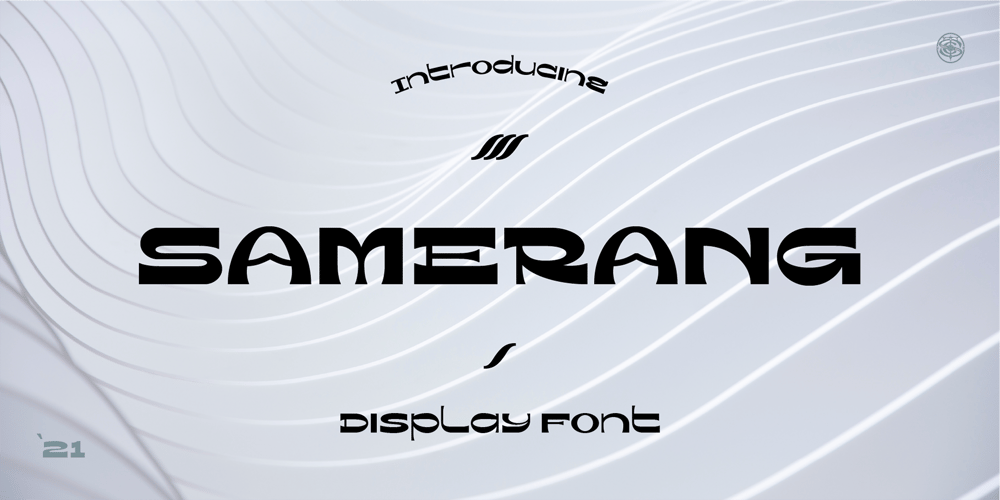
Samerang Display Font Family was designed by Faishal Mahdy and published by Shaltype Co. Samerang Display contains 1 styles and family package options. Samerang is built manually by hands, and reform into a clean Typeface. It can be used for just Title or even writing. Inspired by Alt Retro-futuristic, bringing back the ’70s-’80s poster feels into modern time.In this font, you will get:> Over 303 Glyphs> Contains 31 ligatures in 3 OpenType features> Some Alternates LettersGet Samerang now!It will best use for any design requirement, many fonts will coming with a unique concept.Thank you!Best Regards, FM-STCO.